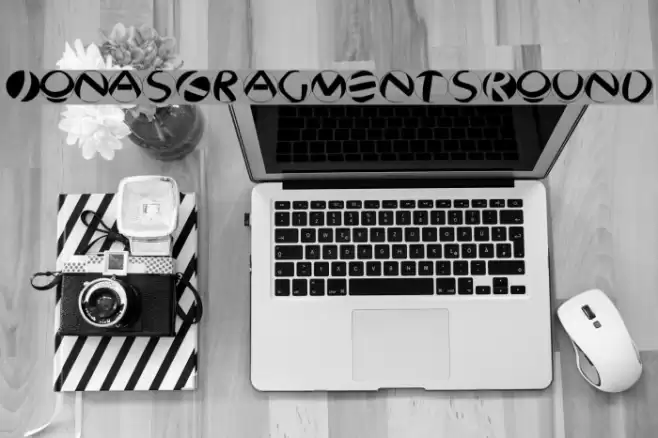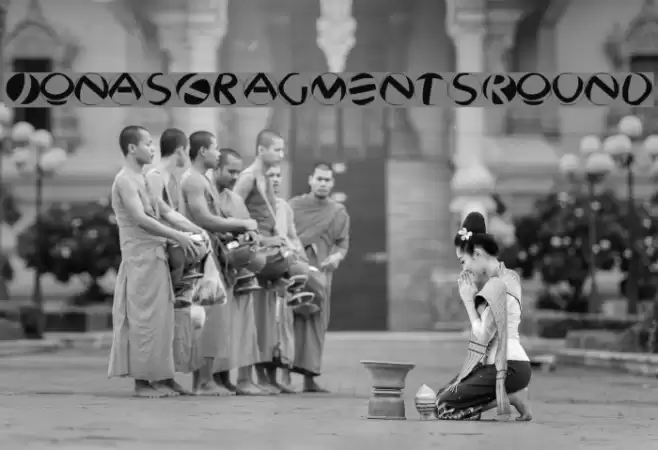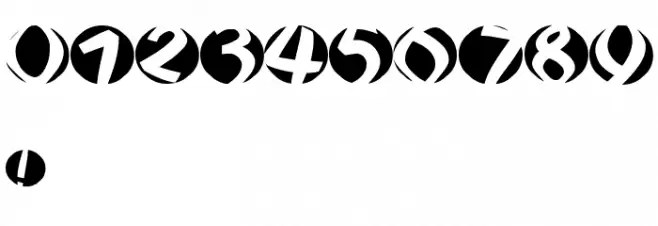
JonasFragmentsRound Font
JonasFragmentsRound Description
This font features a unique and modern design with letters and numbers encapsulated within circular forms. The characters are fragmented, creating a dynamic and abstract appearance. The bold strokes and geometric shapes give it a futuristic and artistic feel, making it stand out in any design. The font's fragmented style adds a sense of movement and energy, perfect for creative projects that require a distinctive and eye-catching typeface.
A modern, fragmented font with bold, circular designs from Uncategorized fonts.
- Proposed Projects: Ideal for branding, posters, album covers, and digital art projects that require a bold and artistic touch.